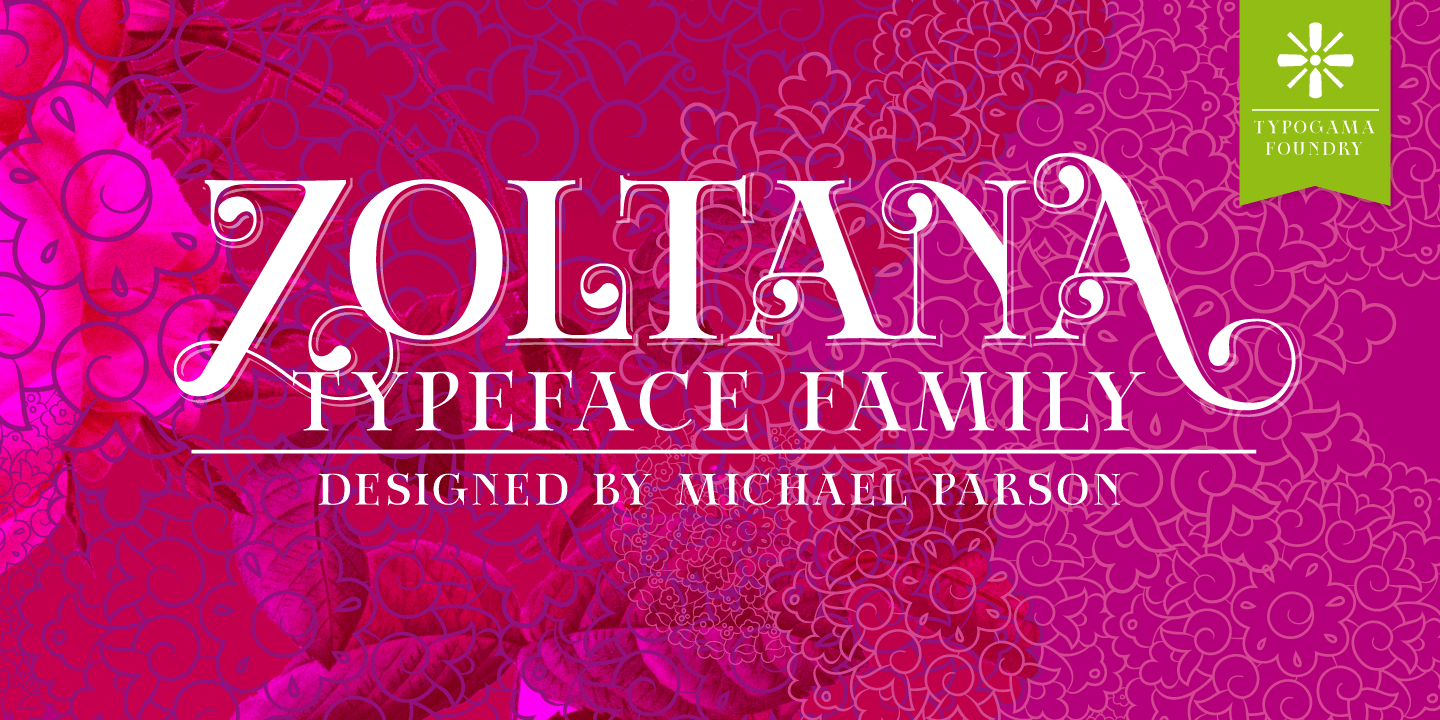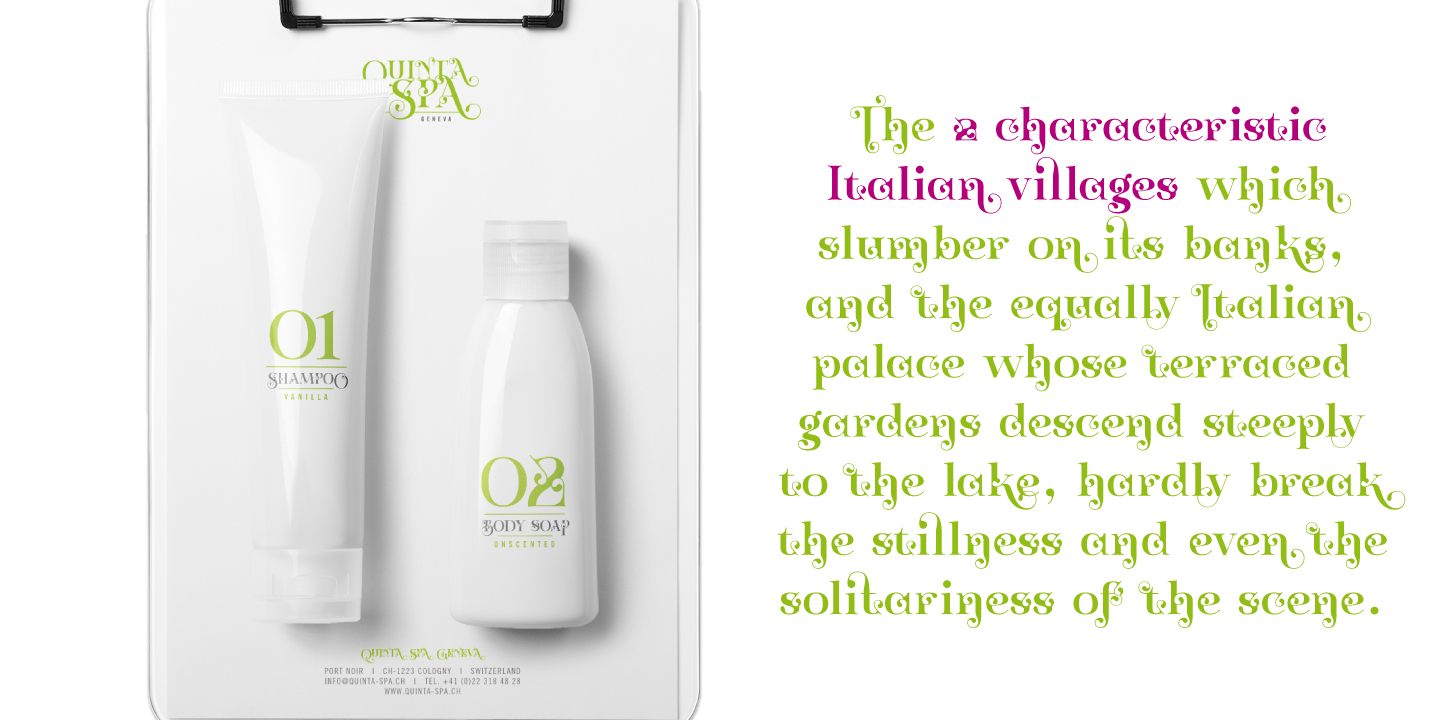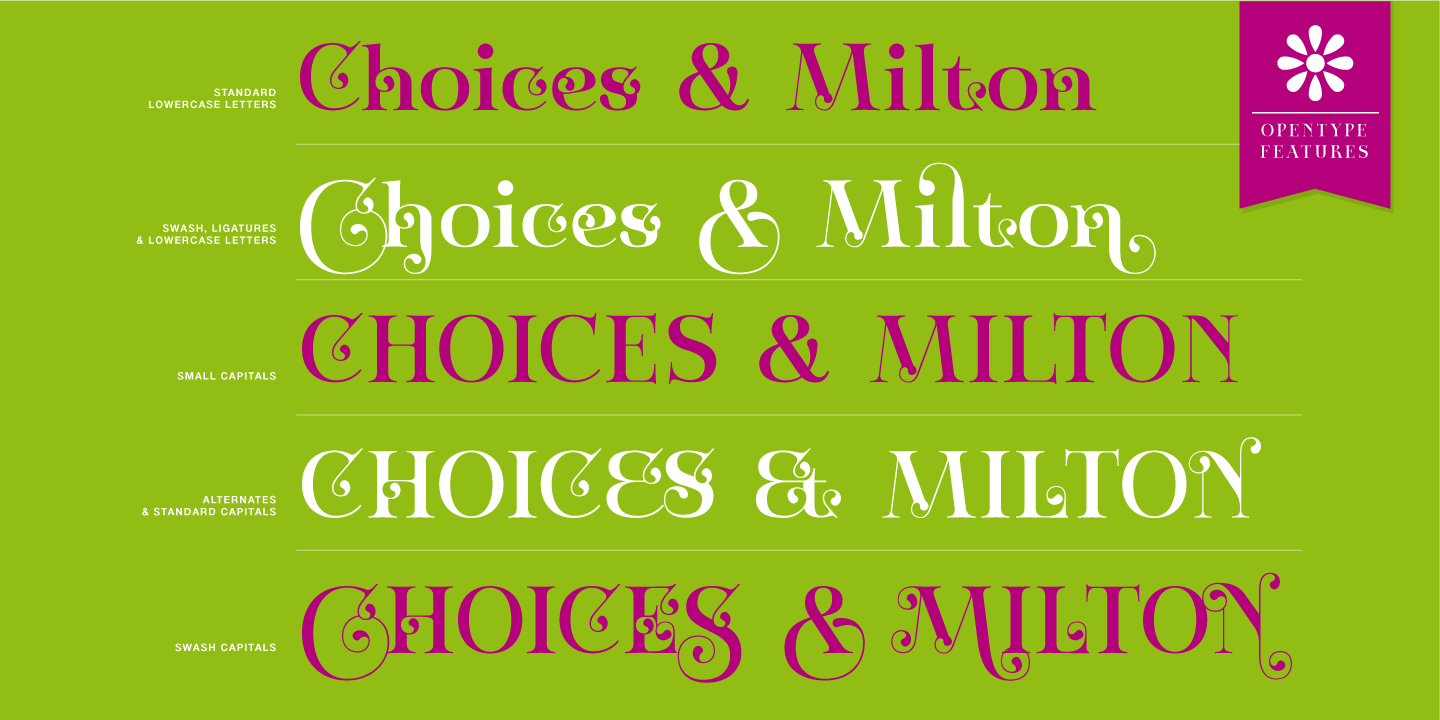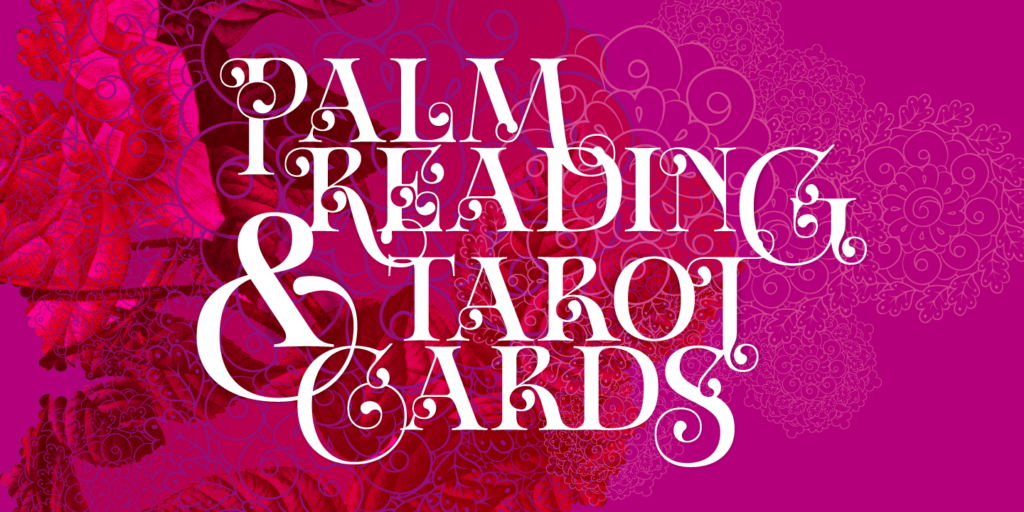
About Zoltana
Zoltana is a lively decorative typeface family designed for elaborate titling or text layouts, with an elaborate form and filled with delicate details, this font aims to grab attention and fill the viewer with a sense of wonder. Thanks to an extensive…